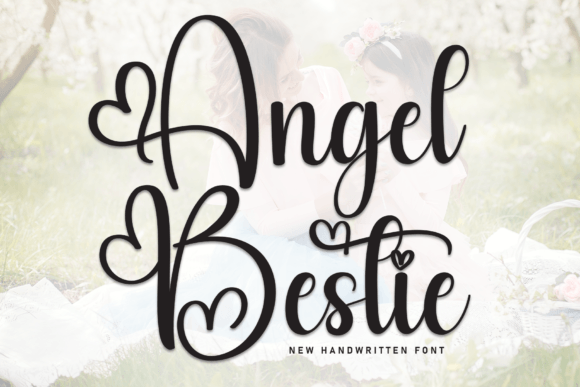
Meet Your New Design BFF: Angel Bestie Font
You know that moment when you’re brainstorming ideas for a new project and everything just clicks? The fonts, the colors, the layout – it all comes together in perfect harmony. For me, that moment is often sparked by the discovery of a beautiful, new font. And, let me tell you, I’m excited to introduce you to one that’s about to become your new best friend: the Angel Bestie Font.
This sweet and cursive handwritten font is the perfect addition to any design project. Its gentle curves and playful charm will add a joyful and romantic touch to your work, making it a must-have for any designer looking to create something truly special. Whether you’re designing wedding invitations, baby announcements, or simply a beautiful quote, the Angel Bestie Font is sure to elevate your design to the next level.
Angel Bestie Font Key Features
- Font Family: Angel Bestie is a unique, handwritten font designed to evoke a sense of elegance and sophistication.
- Unique Characteristics: Angel Bestie features a mix of cursive and script elements, with subtle flair and movement, giving it a distinctive and eye-catching appearance.
Angel Bestie Font Review
Overall, I think the Angel Bestie Font is a lovely addition to any design project. ✨ The font’s whimsical and playful feel makes it perfect for creating a youthful and energetic vibe.
The font’s best features include:
- ✨ Beautifully designed characters with unique flair
- ✨ Great for headings and titles due to its large x-height
- ✨ Works well for digital and print media
However, I do have some concerns:
- ⚠️ The font may be too ornate for some designs, potentially overwhelming the content
- ⚠️ Some characters, such as the ‘a’ and ‘e’, may not be suitable for smaller font sizes due to their complex design
Overall, I’d say the Angel Bestie Font is a great choice for designers looking to add a touch of personality to their projects. While it may not be suitable for all designs, it’s definitely worth considering for the right project.
Tips for Getting the Most Out of Angel Bestie Font
Use the Angel Bestie font to add a touch of whimsy and elegance to your designs. Pair it with bold, bright colors to create a striking visual effect.
The Angel Bestie font is perfect for:
- Baby shower invitations
- Wedding stationery
- Quirky greeting cards
Alternatives to Angel Bestie Font
Great Vibes is a beautiful, elegant script font perfect for wedding invitations, quotes, and other creative projects. It features a flowing and handwritten feel that adds a touch of sophistication to any design.
Compared to Angel Bestie Font, Great Vibes has a more refined and delicate look, making it ideal for projects that require a sense of luxury and elegance. While Angel Bestie Font has a more playful and whimsical feel, Great Vibes is better suited for formal and high-end designs.
Pacifico is a stylish and elegant script font that adds a touch of sophistication to any design. It features a flowing and handwritten feel that makes it perfect for wedding invitations, quotes, and other creative projects.
Compared to Angel Bestie Font, Pacifico has a more relaxed and casual look, making it ideal for projects that require a sense of warmth and approachability. While Angel Bestie Font has a more playful and whimsical feel, Pacifico is better suited for projects that require a sense of calm and serenity.
Carolyna Pro is a beautiful and elegant script font that features a flowing and handwritten feel. It’s perfect for wedding invitations, quotes, and other creative projects that require a touch of sophistication and elegance.